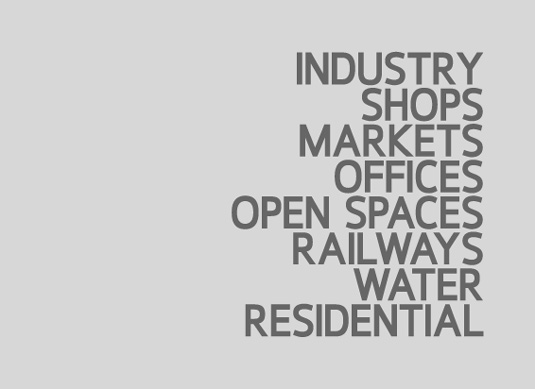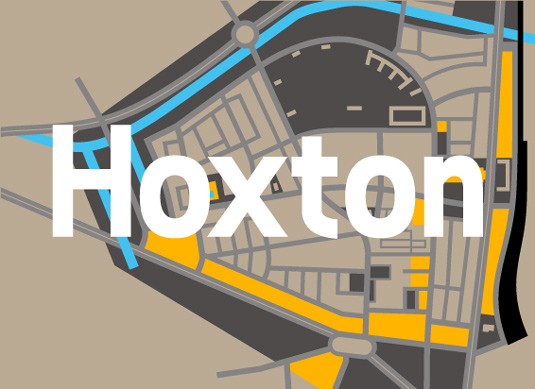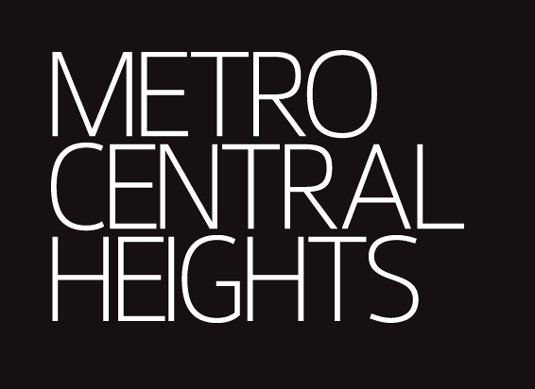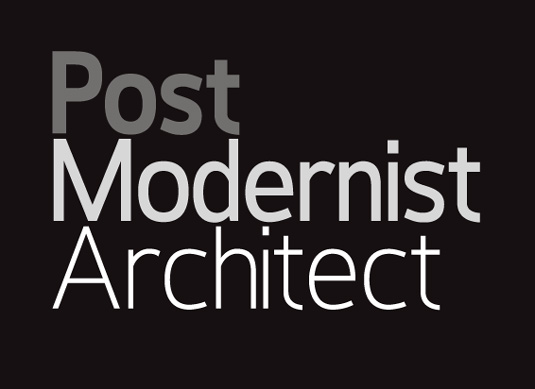
Font of the day: Hoxton
Every day we showcase the best fonts on the web. Today it's Hoxton from The Northern Block.
Hoxton from The Northern Block
Today's font of choice, Hoxton, was created by the team at type foundry The Northern Block. It is described on the website as 'a modern humanistic sans serif typeface. The horizontal structure of the font gives it a clean lateral dynamic that is ideal for on screen uses'. The Hoxton family includes seven weights, a full character set, manually edited kerning and Euro symbol.